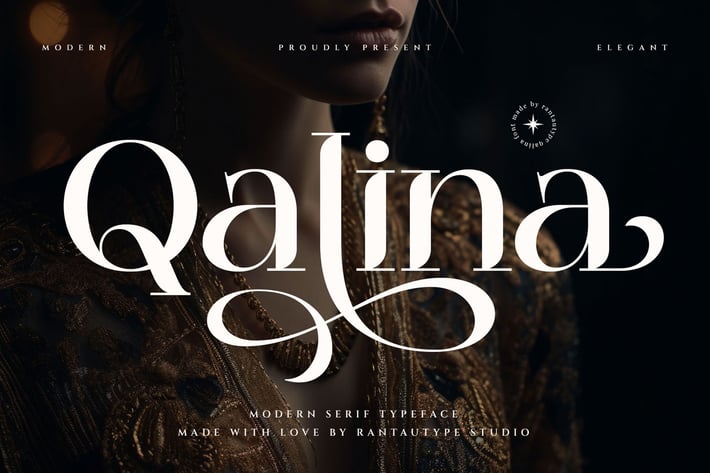
Qalina Modern Serif Font
Qalina is a modern serif font with unique shape and memoriable. We love how Each character is formed makes this font look very elegant and classy. Qalina come with alternate, ligature and already support multingual accent character. Qalina typeface will make your design bright shine.
Qalina is a perfect choice for any creative endeavor, chic, lifestyle design such as logos, advertisements, watermark on photography, stationery, branding project, display and magazine, invitation, corporate brand, product design, label, business project and many other project need elegant taste.
Standar character A-Z and a-z
Ligature and alternate